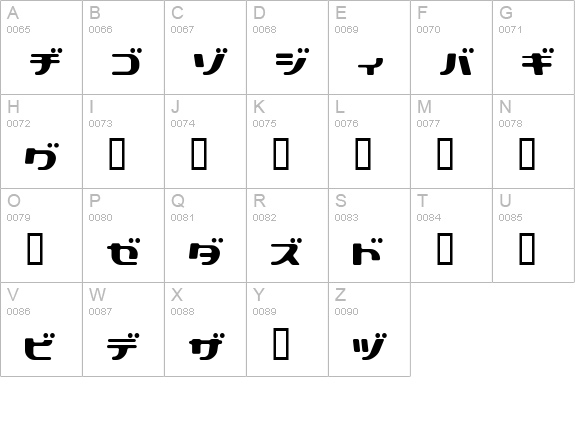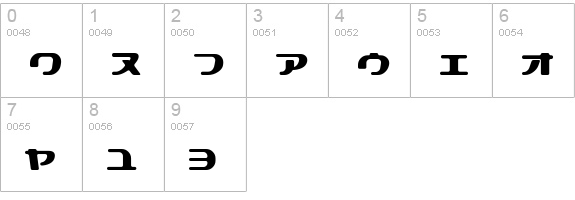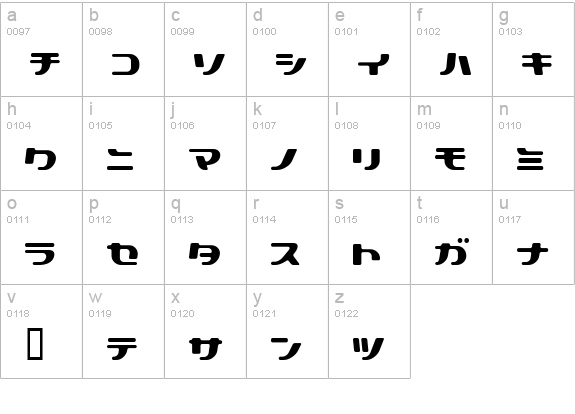
technopolish Font Details
Introducing Technopolish Font, a stunning typeface that seamlessly blends the sleekness of technology with the elegance of polish. This font exudes a futuristic and sophisticated vibe, making it the perfect choice for any design project that requires a modern touch. Technopolish Font is not only visually appealing, but it also offers a range of features that enhance its versatility. With its clean lines and sharp edges, this font is ideal for creating eye-catching headlines, logos, branding materials, posters, websites, and much more. Its unique letterforms captivate the reader's attention, leaving a lasting impression. One of the best things about Technopolish Font is that it is completely free. Yes, you heard it right! This exceptional typeface is freely available to download at FontsMarket.com. Now, you can enjoy the benefits of this incredible font without any cost. Whether you are a professional designer or an aspiring artist, Technopolish Font empowers you to express your creativity in a bold and contemporary manner. Its extensive character set includes uppercase and lowercase letters, numerals, punctuation marks, and special symbols, providing you with endless possibilities for creating captivating and engaging designs. The versatility and aesthetic appeal of Technopolish Font make it a must-have in your font collection. Its seamless integration with various design software ensures a smooth and hassle-free experience, allowing you to focus on bringing your vision to life. So, why wait? Visit FontsMarket.com today and download Technopolish Font for free. Unleash your imagination and elevate your designs with this cutting-edge typeface. Experience the perfect fusion of technology and polish, and let your creativity shine.